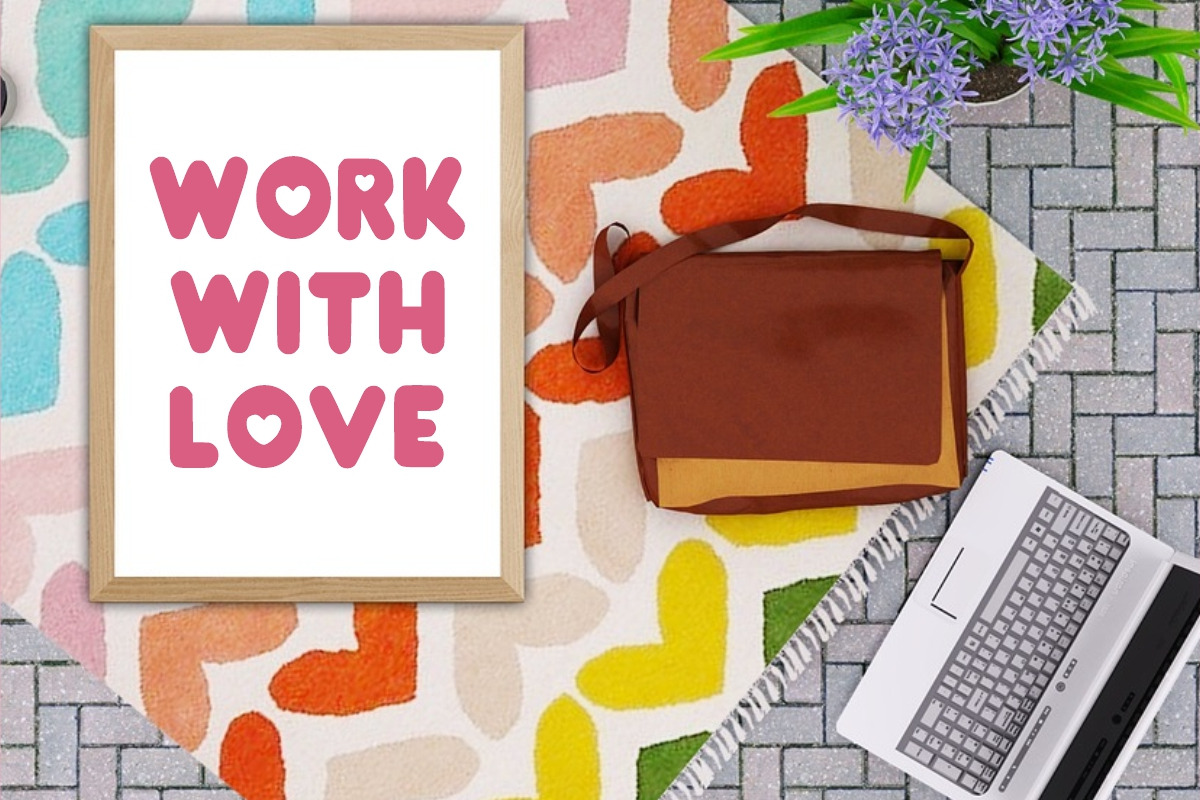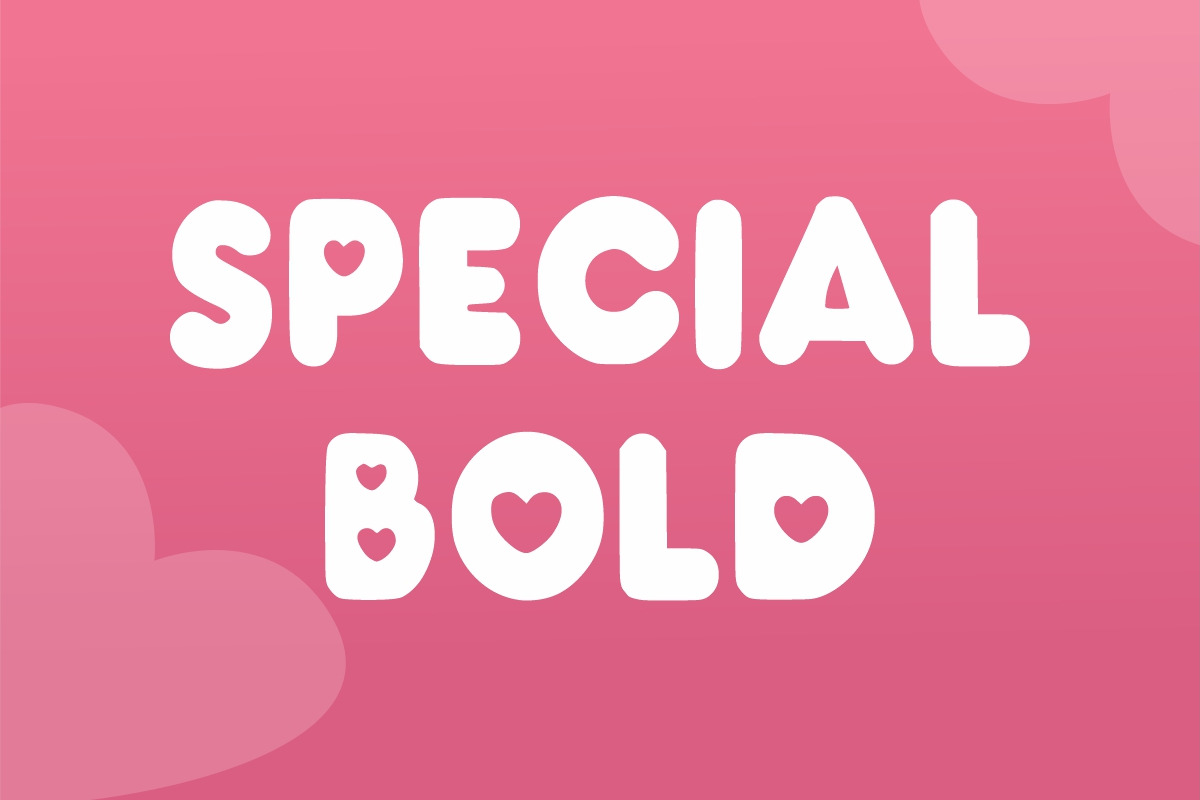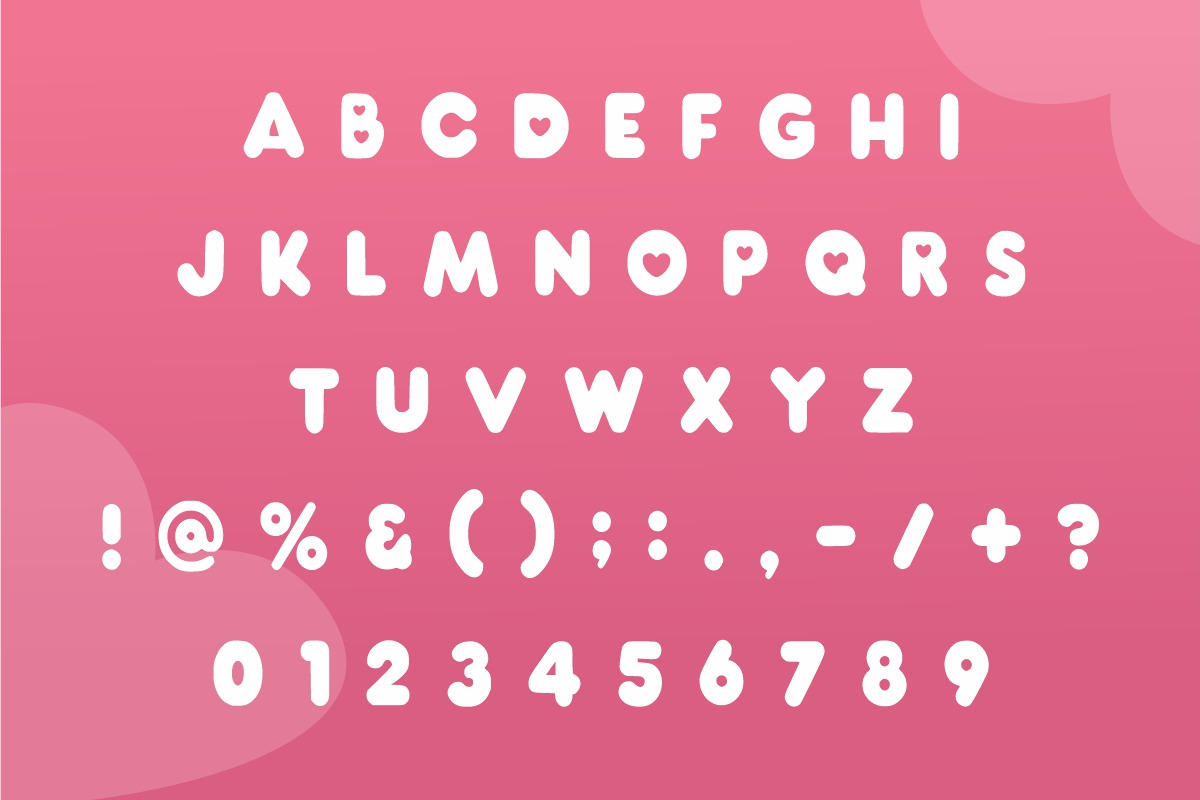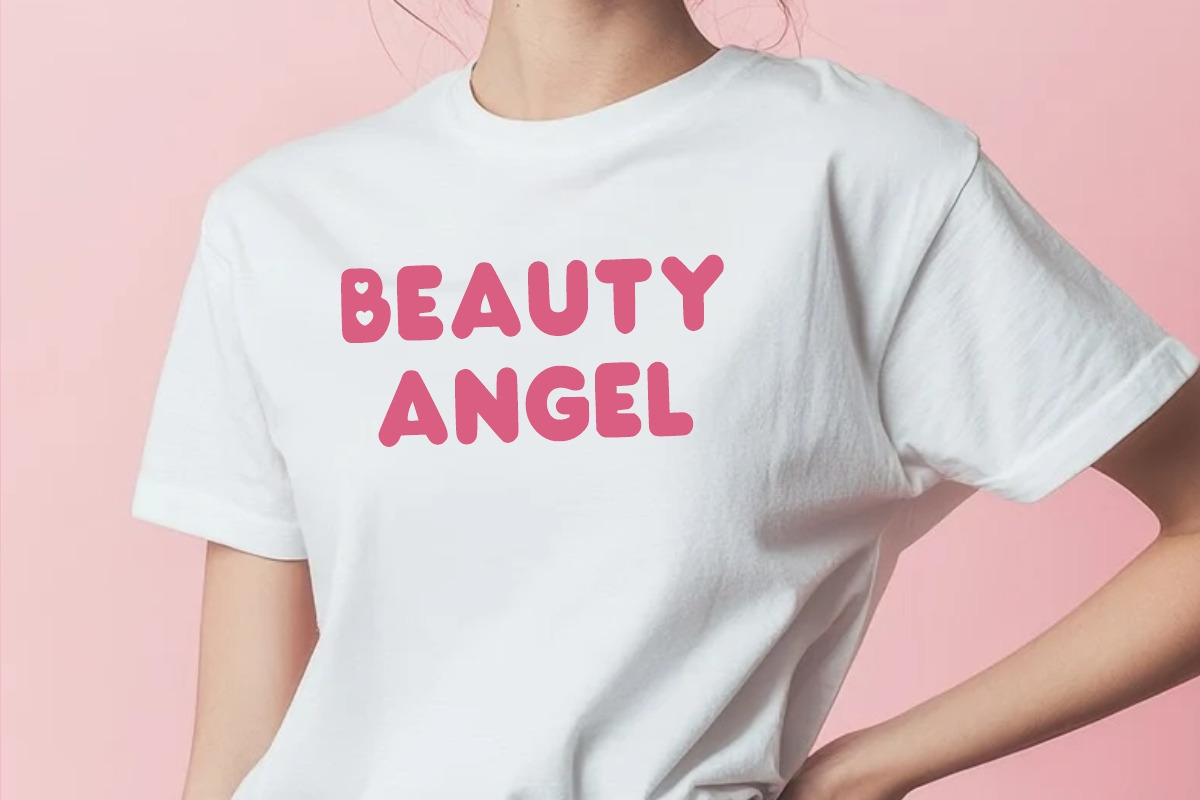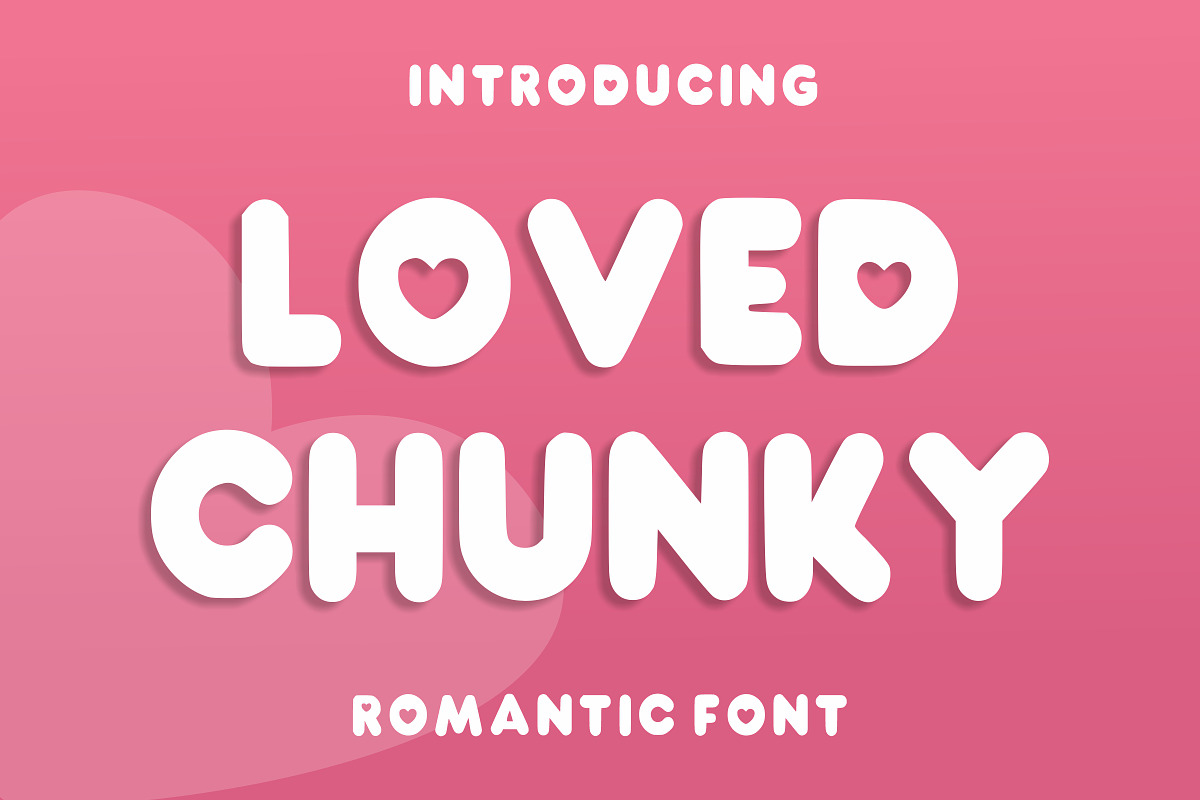
Loved Chunky
Loved Chunky is a fun and romantic display font. Warm, romantic and jolly, this font will turn each of your project ideas into real works of art. Have fun with this beautiful font and explore its endless variations.